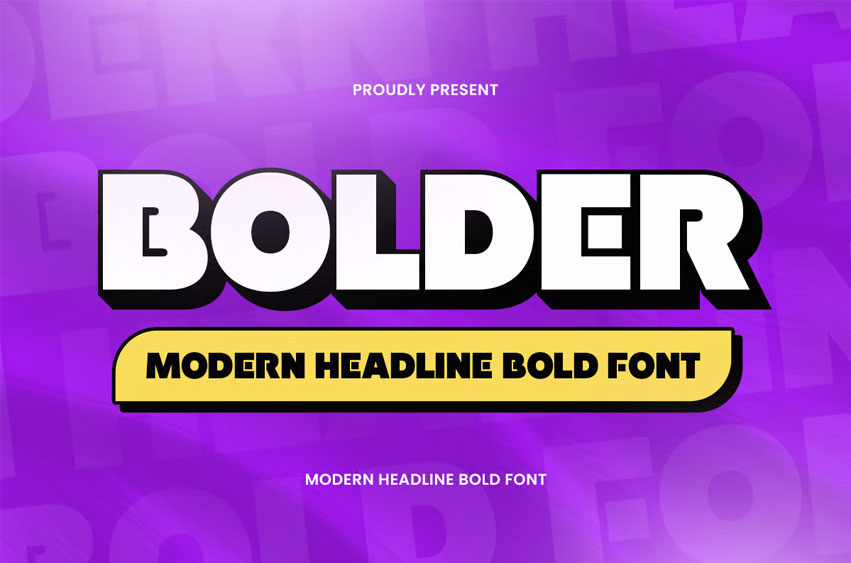
Bolder Font is a modern gaming fancy headline bold font created to deliver instant impact with a confident, high-energy style. With bold weight, sharp presence, and a flashy modern attitude, this typeface is built for designs that need to look powerful, loud, and attention-grabbing.
Designed for gaming-forward visuals and modern digital branding, BOLDER works perfectly across logos, headline typography, thumbnails, posters, banners, UI overlays, streaming graphics, and social media campaigns. Its strong structure keeps your text readable at display sizes while adding a dynamic gaming vibe that makes every title feel more intense and competitive.
Whether you’re creating esports visuals, gaming event promos, or bold modern brand assets, BOLDER gives your typography a signature look that feels energetic, futuristic, and ready for the spotlight.
Inspiration Behind BOLDER
BOLDER is inspired by competitive gaming culture, high-contrast digital visuals, and modern headline typography that demands attention. Crafted for bold branding and energetic display design, it supports strong logo concepts, modern campaign titles, streamer graphics, and digital promo layouts—where a fancy, high-impact look helps content stand out fast.
BOLDER Font Features
• Bold modern gaming letterforms with fancy headline character
• Available with Regular, Outline, and Extrude Styles for variations
• Optimized for high-impact titles, logos, and display typography
• Strong readability for large text, banners, and digital graphics
• OpenType features for polished, flexible typography
• Gaming and esports branding logos
• Headlines, posters, banners, and promotional graphics
• Thumbnails, streaming visuals, and social media campaigns
• UI headers, digital ads, and tech-style layouts
• Event titles, announcements, and bold modern branding
Make your headlines hit harder with BOLDER—crafted for modern gaming impact and fancy bold energy.